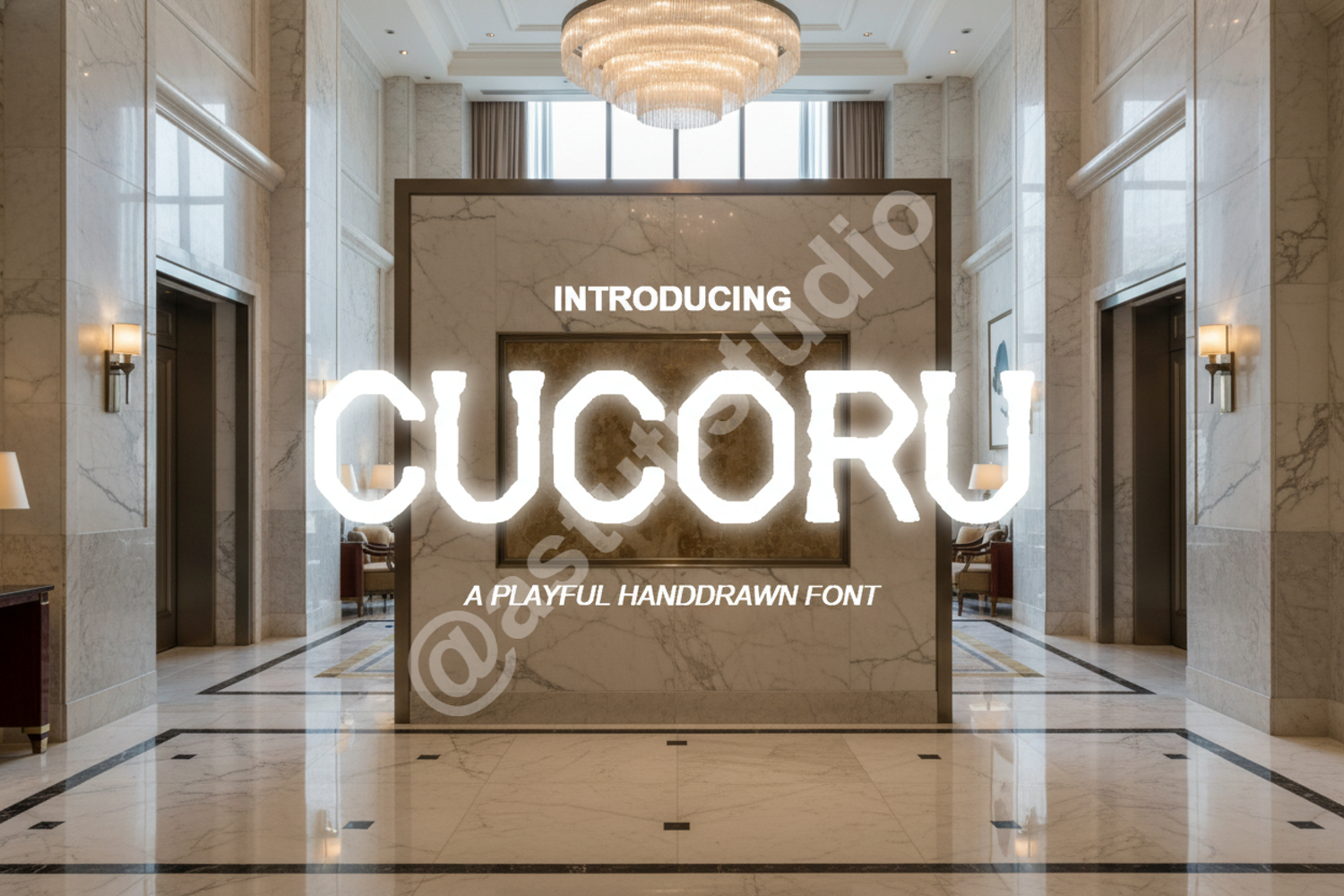
Cucoru | Modern Minimalist Sans Serif Typeface
Cucoru
Introduction:
Introducing Cucoru, a premium sans-serif font designed with modern elegance and versatility in mind. Its clean lines and balanced proportions make it a perfect choice for designers looking to achieve a sophisticated and timeless aesthetic. Whether you are working on a high-end corporate identity or a minimalist lifestyle brand, Cucoru delivers professional results every time.
Optimized Use Cases:
- Professional Branding and Corporate Identity
- Editorial Layouts and Magazine Headers
- Modern Website UI/UX Design
- Minimalist Logo Design and Signage
- Social Media Graphics and Marketing Materials
- High-end Stationery and Packaging Design